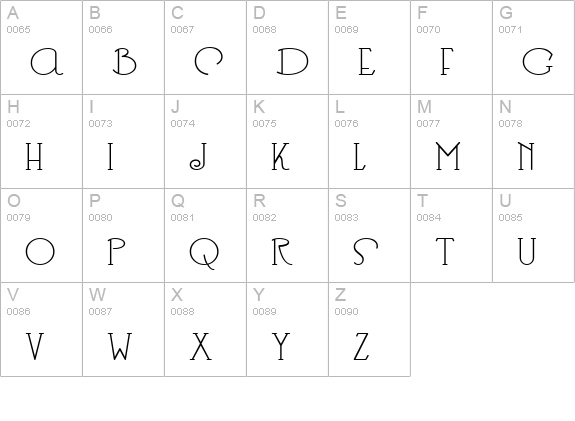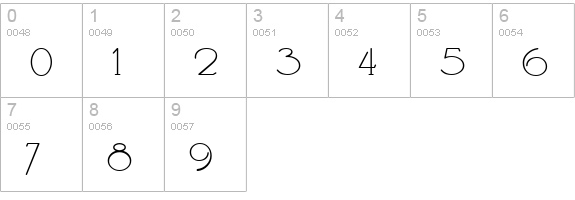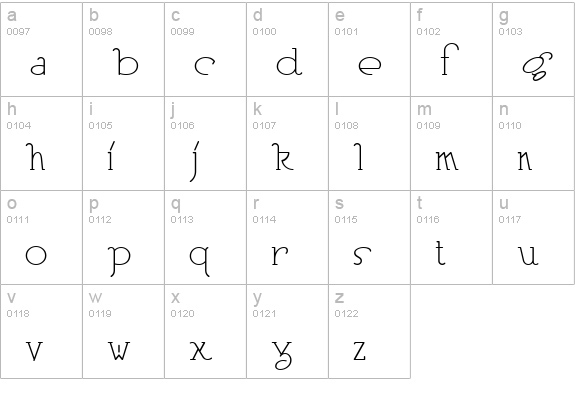
Heberling Casual NF Font Details
Heberling Casual NF font is a charming and versatile typeface that effortlessly combines the elegance of traditional calligraphy with a modern twist. Its flowing strokes and subtle curves give it a relaxed and casual feel, making it perfect for a wide range of projects. Whether you're designing invitations, crafting logos, or creating eye-catching social media graphics, Heberling Casual NF font will add a touch of sophistication and style to your work. Its graceful letterforms and smooth lines create a sense of effortless beauty that is sure to captivate your audience. What sets Heberling Casual NF font apart is not only its impeccable design but also its accessibility. This font is available for free download at FontsMarket.com, allowing you to add this stunning typeface to your collection without breaking the bank. With just a few clicks, you can elevate your designs and give them a professional edge, all without spending a dime. The versatility of Heberling Casual NF font is truly remarkable. Its legibility and timeless appeal make it suitable for both print and digital media, ensuring that your message is conveyed clearly and effectively. Whether you're designing a poster, a website, or even a book, this font will effortlessly adapt to any project, enhancing its overall aesthetic and impact. With Heberling Casual NF font, you have the freedom to let your creativity soar. Its wide range of glyphs and extensive character set provide you with endless possibilities, allowing you to personalize and customize your designs to perfection. Whether you need a bold headline or an elegant script, this font has got you covered. So why wait? Download Heberling Casual NF font for free at FontsMarket.com and unlock a world of creative possibilities. With its timeless elegance and effortless charm, this font is sure to become a staple in your design toolkit. Embrace the beauty of Heberling Casual NF font and watch your designs come to life with a touch of sophistication.